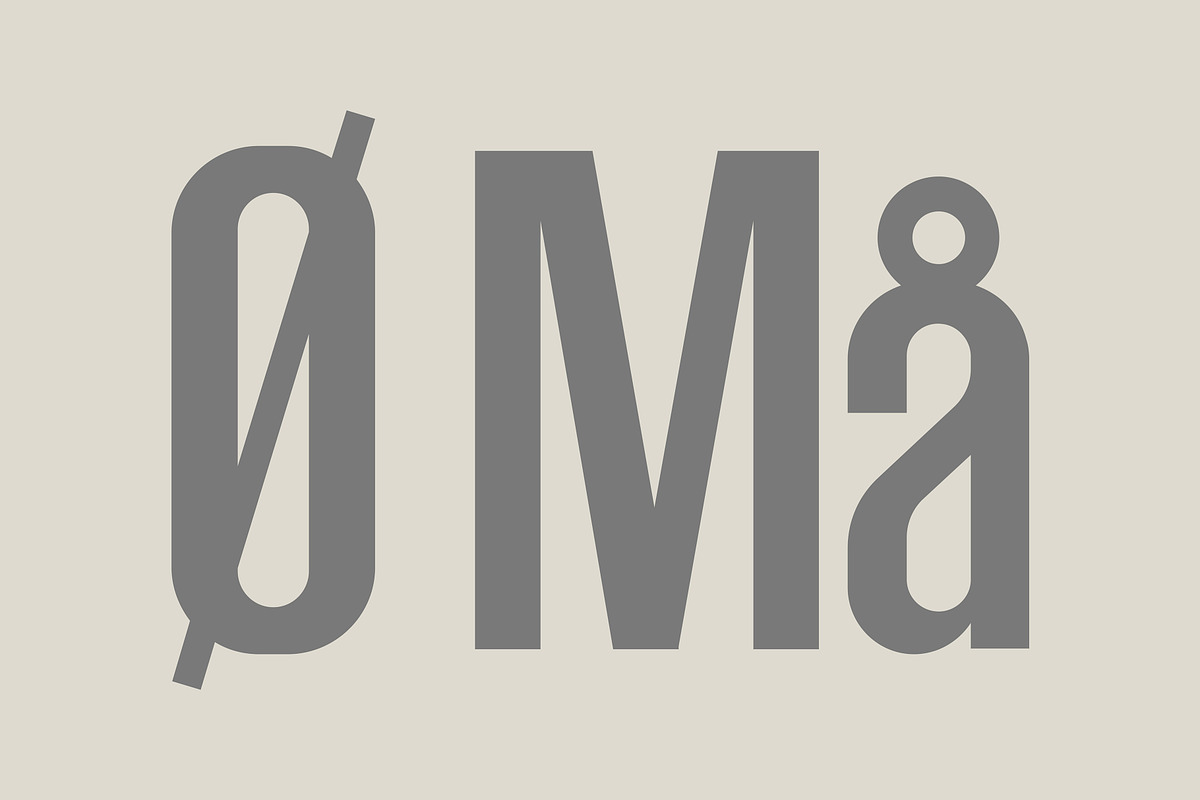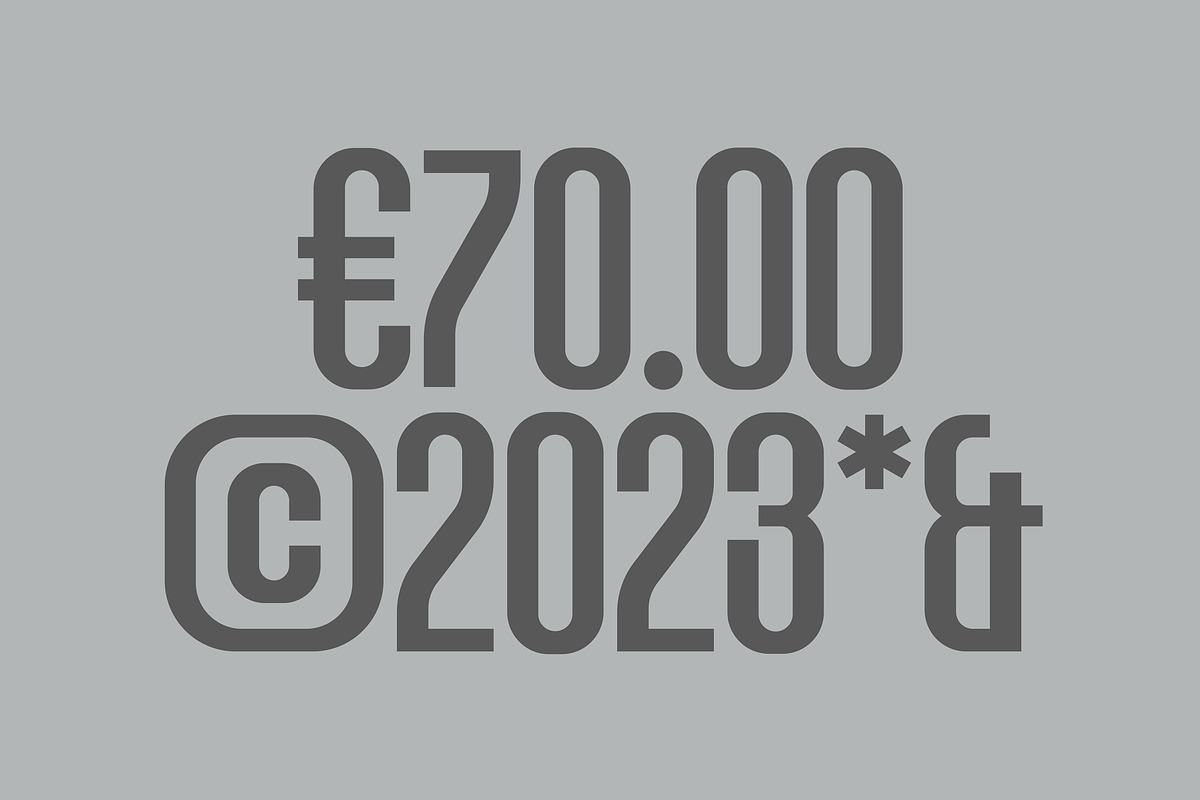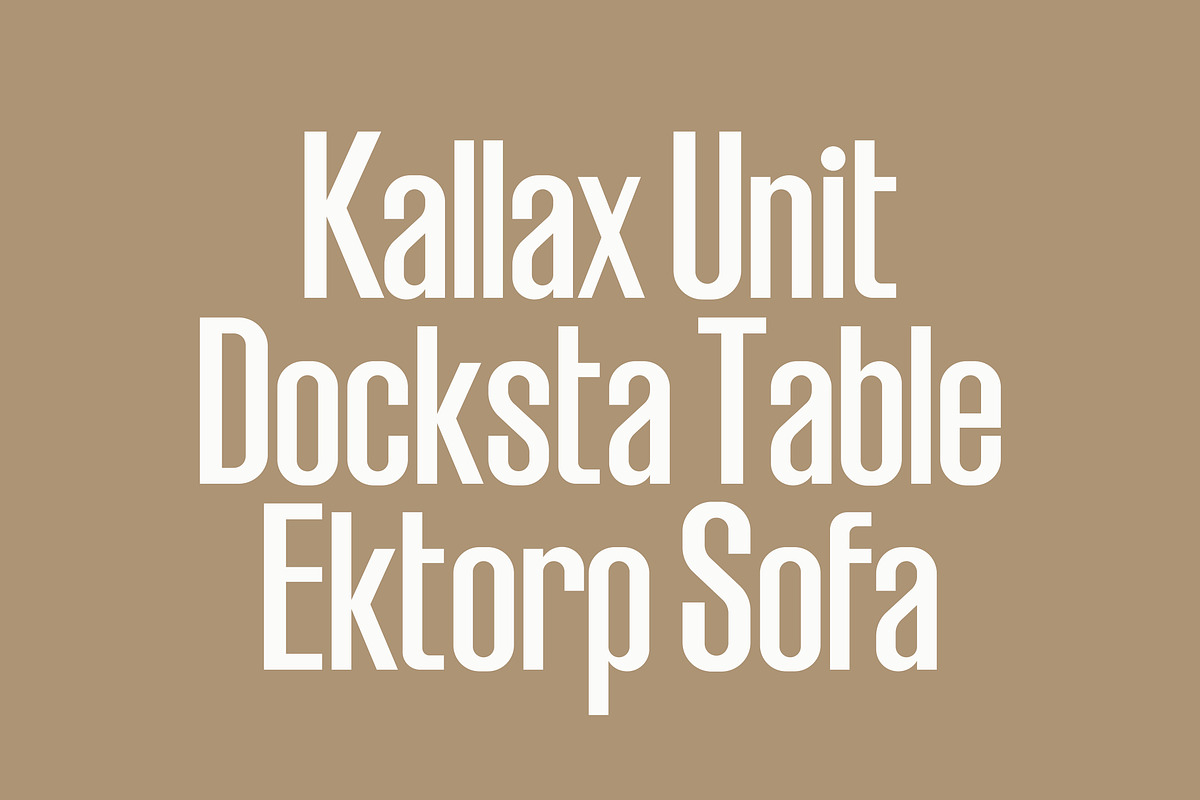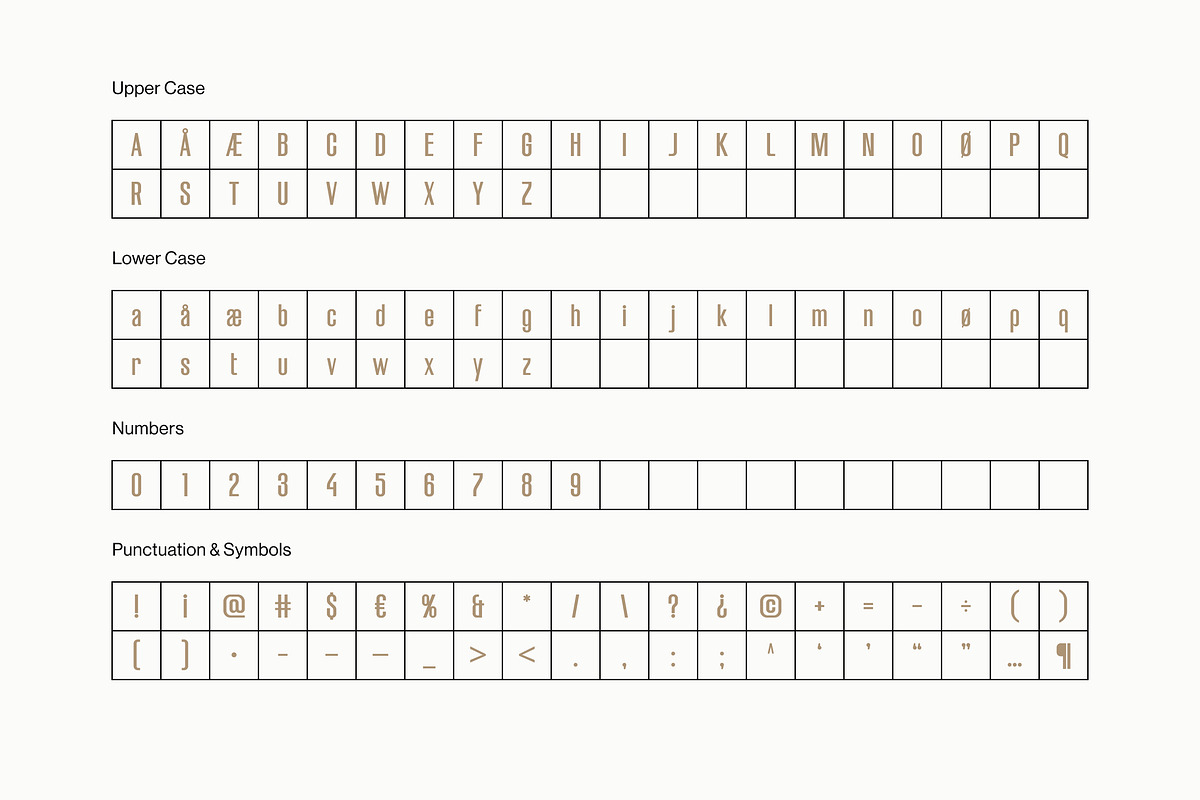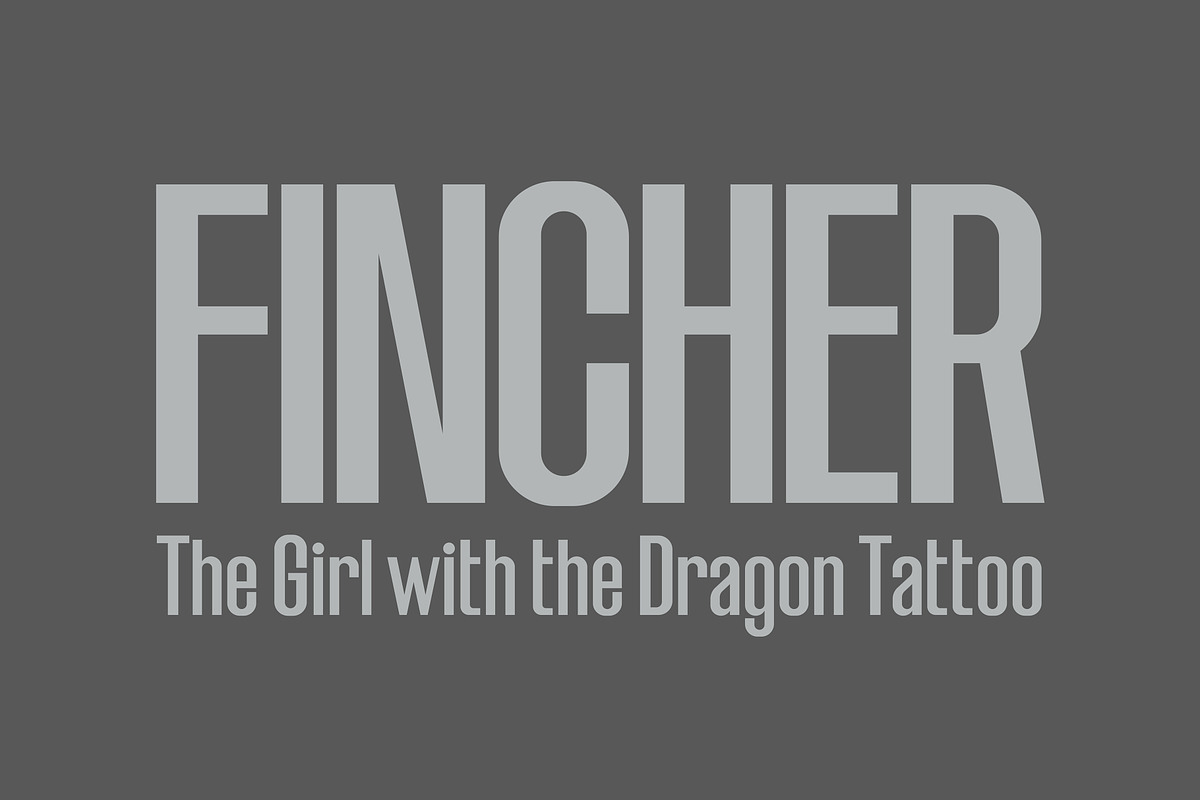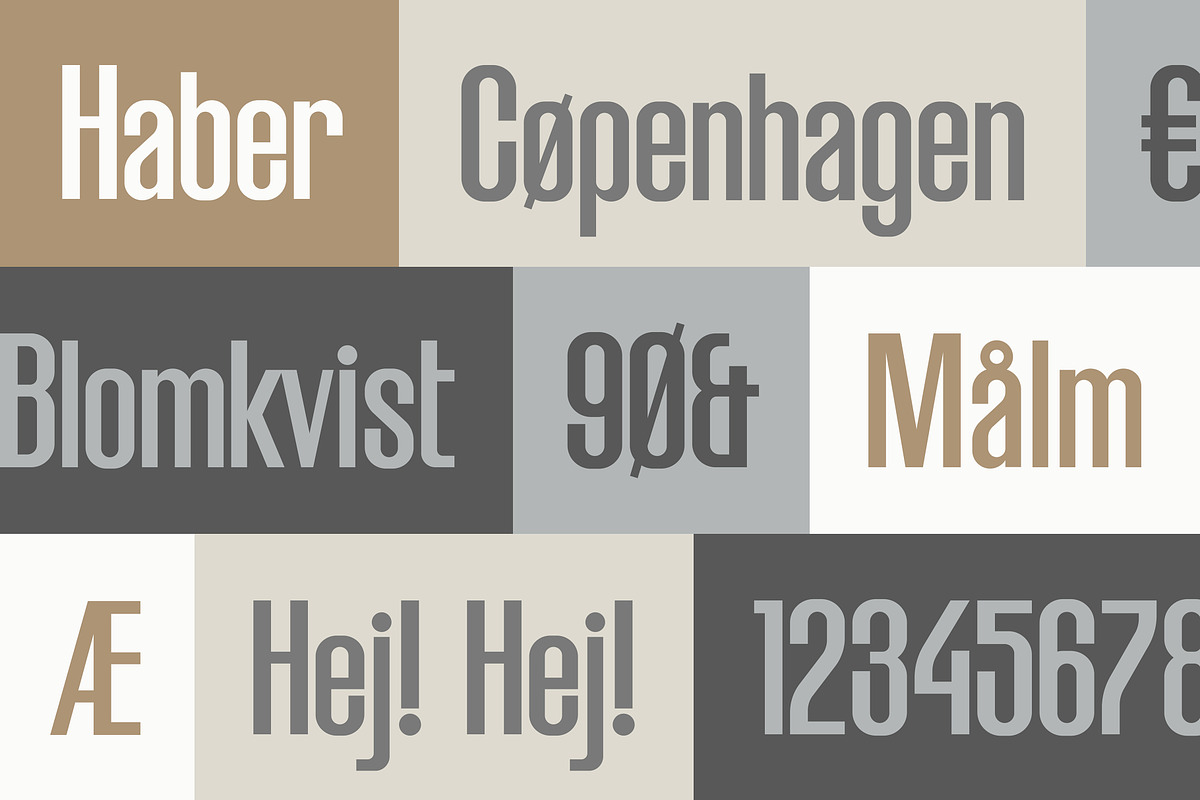
HABER Font
Haber is a minimal, condensed, grotesk font inspired by Scandinavian culture and design. Our newest font offering contains 106 glyphs, including uppercase, lowercase, numbers, punctuation, and special characters—with more to come.